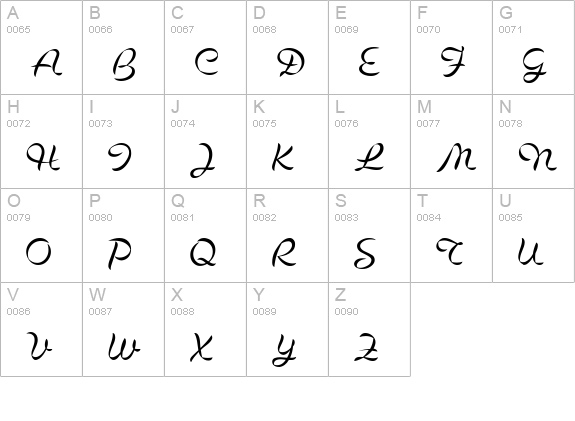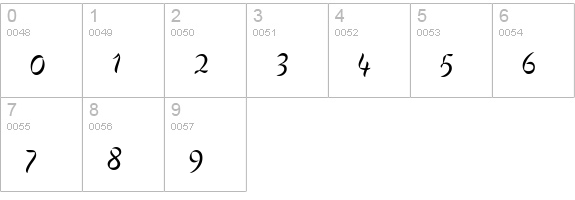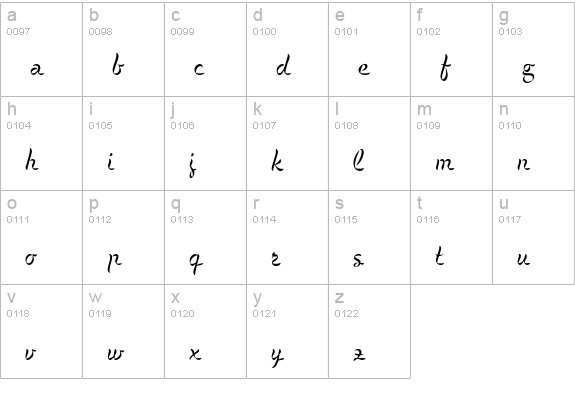
Cigno Font Details
Introducing Cigno font, a stunning and elegant typeface that exudes sophistication and charm. With its graceful curves and stylish flourishes, Cigno is perfect for adding a touch of luxury to your designs. Whether you're creating wedding invitations, branding materials, or social media graphics, this font will elevate your projects to new heights. The best part? Cigno font is available for free download at FontsMarket.com. Now you can enjoy the beauty and versatility of this exquisite typeface without breaking the bank. Don't miss out on this opportunity to enhance your designs with the timeless elegance of Cigno font. Download it today and let your creativity soar!